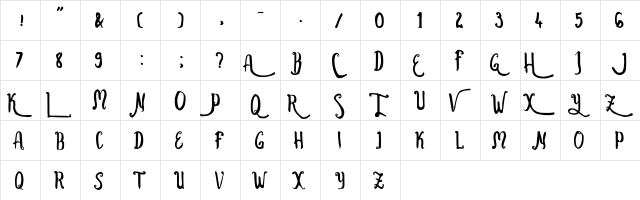
Ballistic Regular Font Preview
Ballistic Regular
Ballistic Regular Font Details
| Foundry | Jun |
| Designer | Thirtypath |
Design Context for Ballistic Typeface
Ballistic is a composed and adaptable typeface that performs quietly and consistently across a wide range of design contexts.